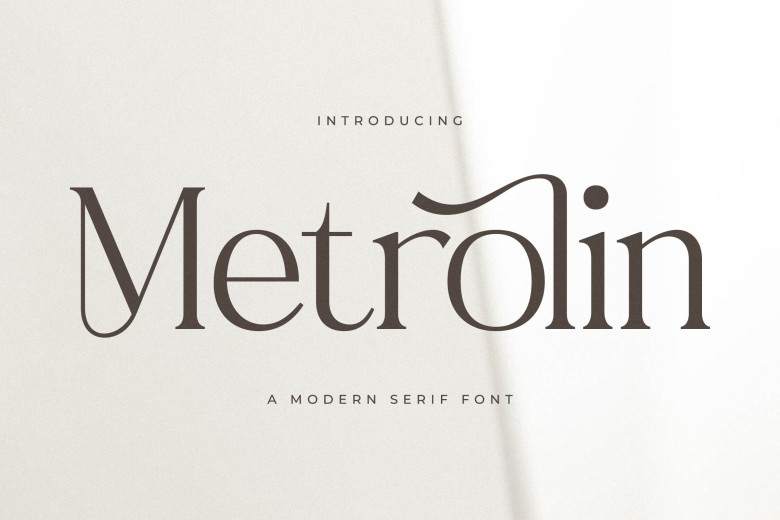
Metrolin Font
Metrolin Font is a modern serif and classic typeface with its distinct style and contemporary appearance, ideal for creating classy logos, movie or book name designs, fashion brand clothing designs, magazines articles, lettering quotes and more.
Metrolin Serif Font